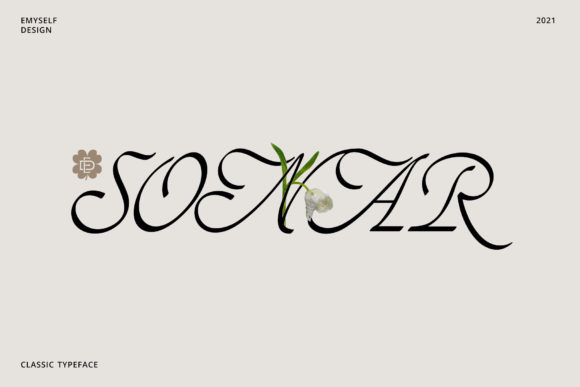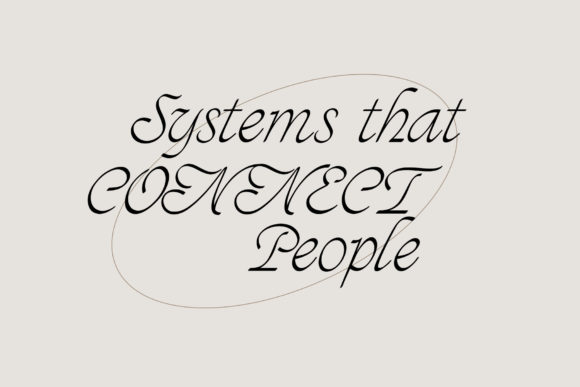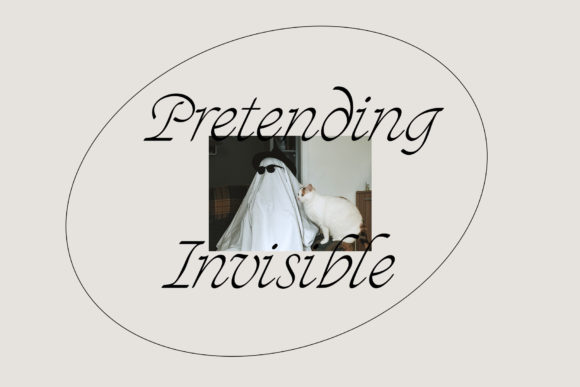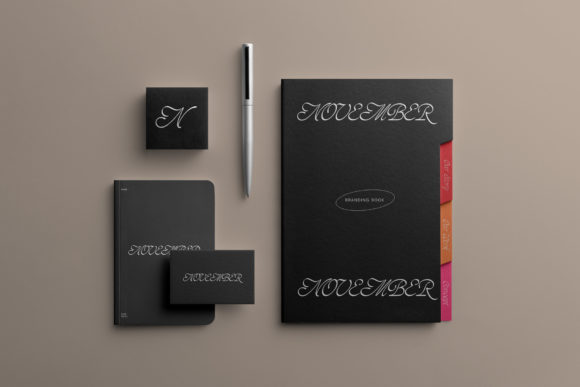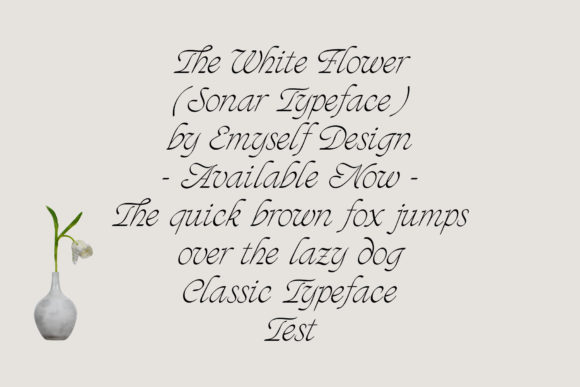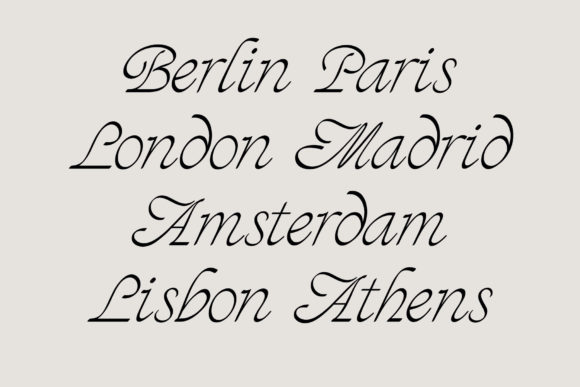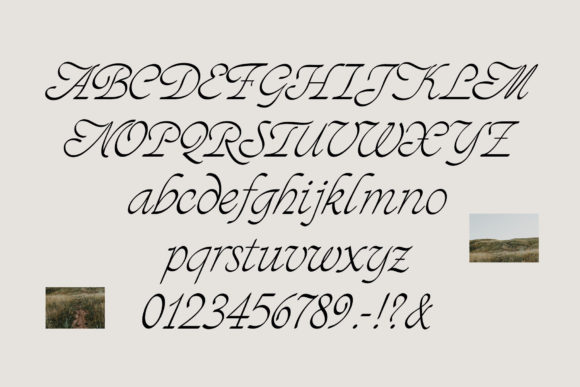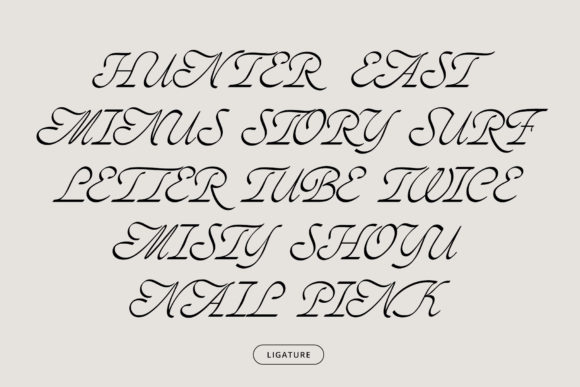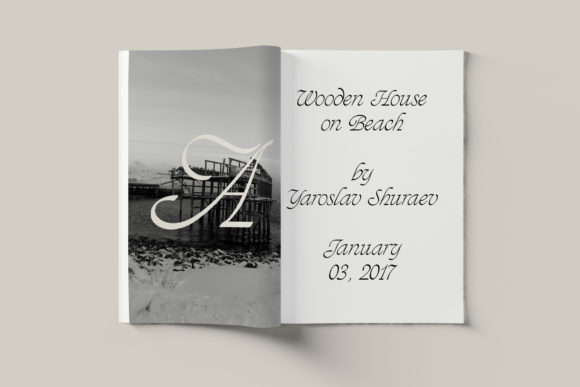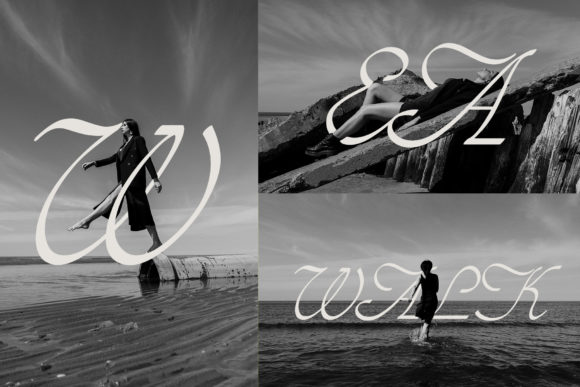
Sonar Font
About Sonar Font
SonarĀ is a delicate and elegant handwritten font. Its distinct and well balanced letters make this font a masterpiece. Fall in love with its incredibly versatile style and use it to create spectacular designs!